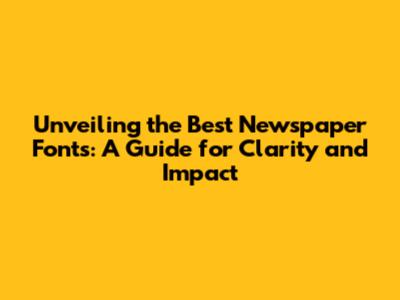
- Consider your target audience: What kind of readers are you trying to reach? Do they prefer a traditional or a more contemporary style? Their preferences should influence your font choices. A newspaper for a more mature audience might lean toward a classic serif font like Times New Roman, while a younger demographic might prefer a sans-serif like Roboto. Understanding your audience helps you choose a font that resonates with them. Fonts communicate more than just words, they convey meaning and personality. Aligning your font choice with your target audience is crucial for creating a publication that is both engaging and effective.
- Prioritize readability: Ensure that your chosen font is easy to read at different sizes and in different printing conditions. Opt for fonts with clear letterforms, generous spacing, and adequate contrast with the background. Readability is the foundation of a successful newspaper font. Without readability, readers will struggle to absorb the information, rendering the design ineffective. Fonts designed with high readability minimize eye strain and enhance the reading experience. To achieve high readability, it's essential to consider factors like the font's design, the spacing between letters and words, and the contrast with the background color. Make sure your font selection ensures readability in diverse contexts, from headlines to body text.
- Experiment with different fonts: Don't just settle on the first font you see. Try out various options, test them with different headlines and body text, and see how they look in your actual newspaper layout. Experimentation is a critical step in the font selection process. Trying out different fonts in your layout is the only way to get a true sense of how they'll work. Different fonts can change the look and feel of a design, and testing allows you to find what fits your needs the best. Testing fonts helps in understanding how different fonts work in your specific layout. Experimentation also enables you to see how the font will fit with your content. Trying out various options allows you to make an informed decision on which fonts work best for your unique layout and content.
- Consider the overall design: The font should work well with the rest of your newspaper's design elements, such as the layout, color scheme, and imagery. The overall design of a newspaper includes numerous elements that collectively create the visual experience. The font is just one piece of the puzzle, and it must harmonize with other design elements to achieve a cohesive and appealing look. Coordinating your font choices with other elements will improve readability, and strengthen the overall message. Harmonious design elements contribute to a more enjoyable and efficient reading experience. By considering the broader design, you can ensure that the font enhances the overall aesthetic and supports the newspaper's goals. A thoughtful design ensures that every element, including the font, comes together seamlessly to create a visually appealing newspaper.
- Think about the context: Consider where your newspaper will be read. Is it primarily a print publication or will it be read online as well? This should affect your font choice. Newspapers are consumed in various formats and environments, so the font should perform well regardless of the context. For print publications, factors such as paper quality and ink absorption can impact readability. For online publications, the responsiveness of the font on different devices is key. Adapting your font choices to the context ensures that your readers have the best possible experience, and that the newspaper is accessible to everyone.
Hey guys, have you ever stopped to admire the fonts used in your favorite newspaper? Probably not, right? We often take these things for granted. But, the truth is, the choice of font is super crucial in newspaper design. It's not just about aesthetics; it's about readability, legibility, and ultimately, how well the reader absorbs the information. Choosing the right font can significantly impact how your newspaper is perceived, ensuring that your audience can easily digest and engage with the content. That's why we're diving deep into the best newspaper fonts, exploring their characteristics, and how they contribute to a compelling reading experience. Let's get started. We'll look into some of the most popular and effective fonts used in newspapers around the world.
Why Font Choice Matters in Newspaper Design: Readability and Beyond
Okay, so why should you even care about fonts in the first place? Well, imagine trying to read a newspaper where the text is tiny, cramped, or just plain weird. You'd probably give up pretty quickly, right? The primary function of a newspaper is to deliver information, and if the font hinders that process, then the newspaper has failed in its fundamental purpose. This is why readability is paramount. The font needs to be easy on the eyes, especially given that people often read newspapers for extended periods. A readable font minimizes eye strain and allows the reader to focus on the content. A good font makes the reading experience effortless and enjoyable. But it doesn't stop at readability. Font choice also influences the overall tone and brand identity of a newspaper. A serif font, which has small strokes at the end of the letters, often conveys a sense of tradition, authority, and credibility. On the other hand, a sans-serif font (without those strokes) can feel more modern, clean, and sometimes even informal. Think about it: a newspaper covering financial news might opt for a classic serif font to project reliability, while a youth-oriented publication might lean towards a more contemporary sans-serif. The font contributes to the newspaper's personality and reinforces its brand image. Furthermore, font choices also affect legibility across various printing conditions. Newspapers are printed on different types of paper, with varying levels of ink absorption. A well-chosen font maintains its clarity even when the print quality isn't perfect. This is particularly important for smaller font sizes, as the text needs to remain clear and distinguishable. The right font ensures that the content is accessible to all readers, regardless of the printing process. In essence, the best newspaper fonts are not just visually appealing; they're strategic tools that enhance the reader's experience, communicate the newspaper's values, and ensure that the message is received clearly and effectively.
The Importance of Readability and Legibility
Alright, let's break down these two key concepts. Readability refers to how easily a block of text can be read, and is influenced by factors like font size, line spacing, and the overall design of the page. It's about creating a comfortable reading experience. Legibility, on the other hand, focuses on how easily individual characters can be distinguished from each other. Think about it, a font might look beautiful, but if the letters are too similar or oddly shaped, it can be tough to quickly recognize the words. Factors affecting legibility include the font's design, the contrast between the text and the background, and the use of bolding or italics. The right font balances readability and legibility, maximizing comprehension and minimizing strain on the reader. Choosing a font that is readable makes the reading process fluid and effortless. The reader will be able to skim through the articles smoothly and understand the meaning of the content. A font that is highly legible also helps the reader quickly identify the words, and they will not need to reread sentences because the words are unclear. Also, consider the publication's target audience. Older readers may benefit from fonts with high readability and legibility. For example, some fonts have larger character spacing, which is ideal for elderly people with visual impairments. In short, the choice of font significantly impacts both the readability and legibility of a newspaper, impacting how the information is received and processed.
Top Newspaper Fonts: A Closer Look at the Champions
So, what are some of the best newspaper fonts out there? Let's take a closer look at some of the champions that have stood the test of time, and why they're so effective. Remember, the perfect font depends on the specific needs of your publication, but these are great starting points.
1. Times New Roman: The Classic for a Reason
If you're looking for a reliable, classic choice, then Times New Roman is it. This serif font, developed in the 1930s for The Times of London, is practically synonymous with newspapers. Its design focuses on readability and legibility, making it an excellent option for large blocks of text. The serifs help guide the eye across the line, improving the reading flow, and its sturdy design holds up well in print. Times New Roman has been used by countless newspapers worldwide, and it continues to be a popular choice due to its timeless appeal and practicality. Times New Roman is great for traditional publications focusing on news, features, and in-depth reporting. The font's familiarity can convey a sense of authority and professionalism, which is beneficial for publications that want to be considered as reliable sources of information. However, while Times New Roman is reliable, it can sometimes feel a bit formal. It might not be the best choice for a newspaper that is trying to project a modern or youthful image. Still, it's a solid choice for any publication that values readability and clarity above all else. Times New Roman's readability is one of the main reasons it's been such a long-lasting font, making it perfect for newspapers where large amounts of text need to be read.
2. Georgia: The Versatile and Readable Choice
Georgia is another serif font with a strong reputation for readability, especially on screens. Designed in the 1990s, Georgia was optimized for display on lower-resolution computer monitors, meaning it has clear and distinct letterforms even at smaller sizes. Its slightly bolder appearance can make it easier to read in print, and it's a good alternative to Times New Roman if you're looking for something with a bit more personality. Georgia is versatile and can be used effectively for headlines, body text, and even captions. Georgia is a great choice for newspapers that want a balance of readability and a slightly more contemporary look. The font's clarity is useful for publications that want to ensure their content is accessible to readers on a variety of devices and in different print conditions. Georgia can be adapted to many styles of newspaper, but is particularly useful if a newspaper has a strong online presence. Its design makes it ideal for digital displays, ensuring the content is easy to read no matter what platform the reader is using. Whether it's printed or on a screen, Georgia is a good choice for ensuring the content is both visually pleasing and easily accessible.
3. Roboto: A Modern Sans-Serif Option
If you're aiming for a more modern and clean look, Roboto is an awesome choice. This sans-serif font, developed by Google, has become incredibly popular in recent years, thanks to its versatility and legibility. Its geometric forms and open letter shapes make it easy to read, both in print and on screen. Roboto is great for headlines, subheadings, and even body text, especially in publications that want to convey a sense of innovation and modernity. Roboto provides a clean and contemporary appearance that is quite versatile. It's ideal for a publication that is attempting to project a fresh and modern image. Its simplicity works well for both the digital and print worlds. Roboto’s clear and straightforward design makes it an ideal option for headlines and body text. The font's adaptability and clarity make it a strong contender for any newspaper looking to stay current and accessible.
4. Helvetica: The Timeless and Iconic Choice
Helvetica is a true classic. This sans-serif font is famous for its clean lines, neutrality, and versatility. It's been used in everything from signage to advertising and, of course, newspapers. Helvetica is renowned for its excellent legibility and can be used in a variety of contexts, from headlines to body text. Its simplicity and clarity make it a fantastic option for a newspaper that wants a clean, minimalist aesthetic. The neutral appearance of Helvetica allows the content of the newspaper to shine. This can be especially useful for newspapers that want to present information in an objective and straightforward manner. Helvetica works in a range of designs, but is most successful in designs which wish to place the focus on the content and maintain a high level of clarity. The font's universal appeal and timelessness make it a great selection for any newspaper aiming for a sophisticated and reader-friendly design.
Tips for Choosing the Right Font for Your Newspaper
Choosing the right font for your newspaper is a decision that impacts the overall reading experience, so you should give this process some serious thought. Here are some key tips to keep in mind:
Conclusion: Choosing Fonts for Impact
Selecting the best newspaper fonts is a crucial part of the design process. The right font not only enhances readability but also conveys the newspaper's brand identity. Whether you choose a classic serif like Times New Roman, or a modern sans-serif like Roboto, the goal is to create a reading experience that is both clear and engaging. By prioritizing readability, considering your target audience, and experimenting with different options, you can choose fonts that will make your newspaper look great and help your readers absorb all the amazing content you are producing. Happy designing, guys!